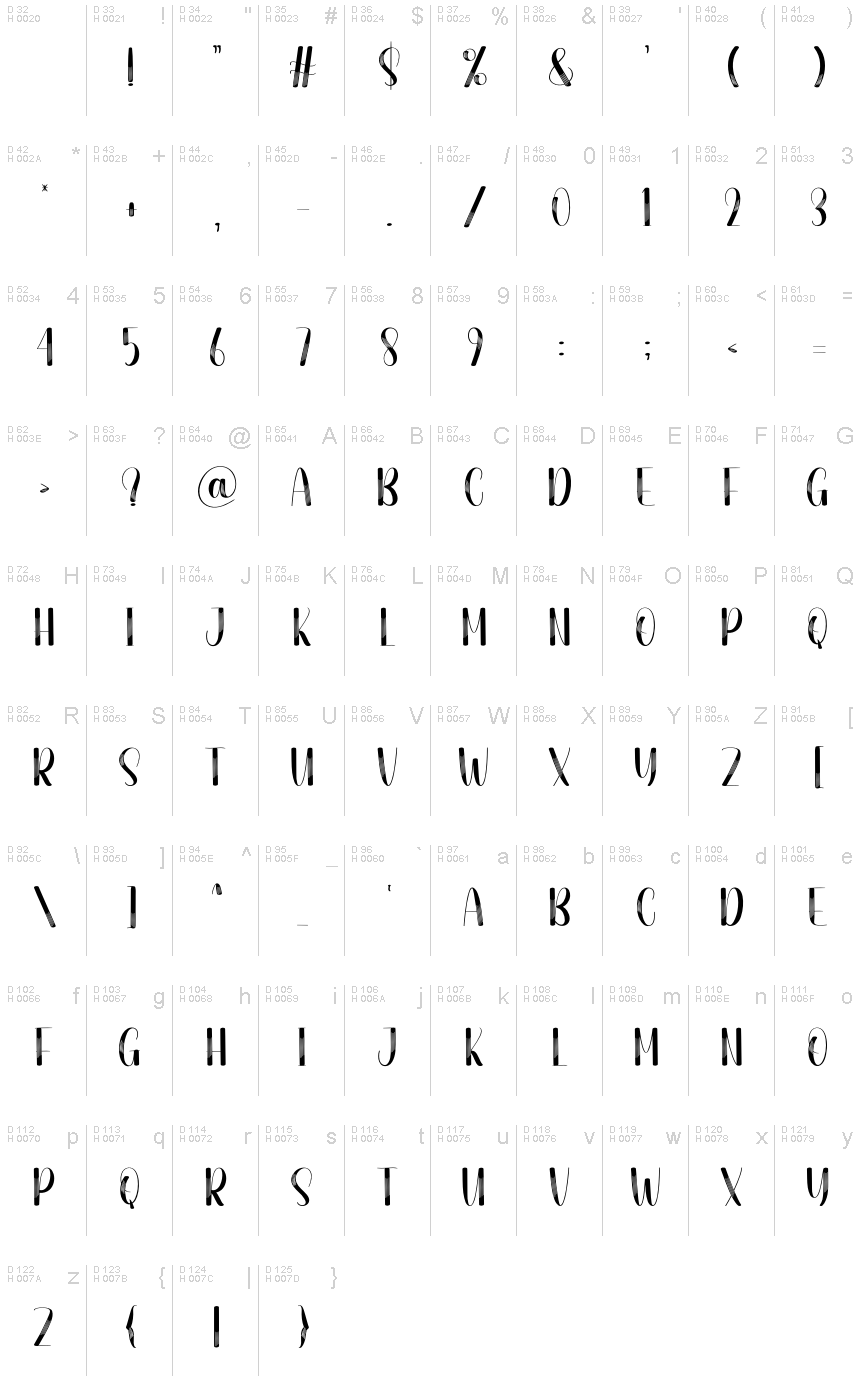
Hand Scratch
Hand Scratch font, designed by Scratchones, captivates with its striking personality and playful charm. This display typeface features exaggerated curves and whimsical elements, creating an engaging visual rhythm. Its condensed form enhances a sense of elegance while maintaining a contemporary edge, making it both eye-catching and distinctive.
The unique scratch-like texture evokes a sense of artistry and authenticity, ideal for designs that aim to convey creativity or a handmade quality. Hand Scratch shines in various contexts such as branding for artisanal products, vibrant posters, or social media graphics. Its bold presence invites audiences in, ensuring messages resonate with originality and flair. Whether for commercial projects or personal endeavors, Hand Scratch is the perfect choice to breathe life into any creative venture.